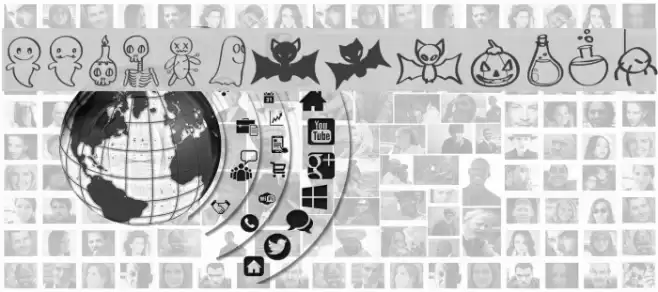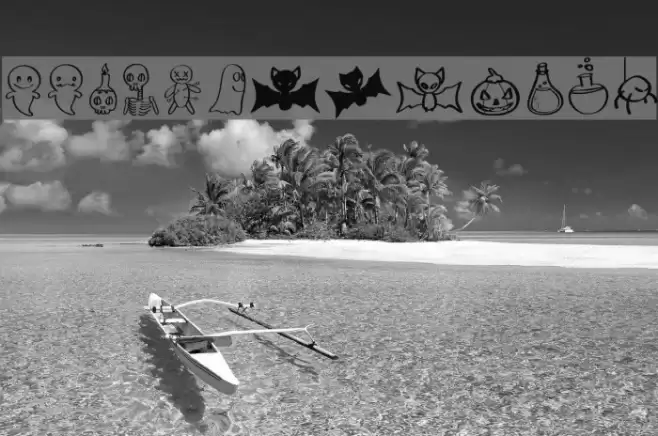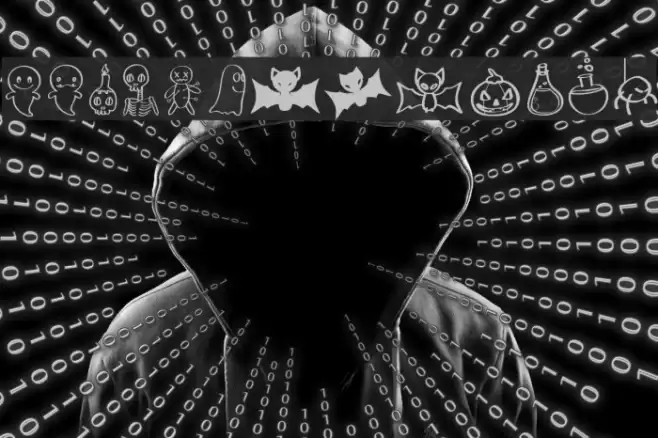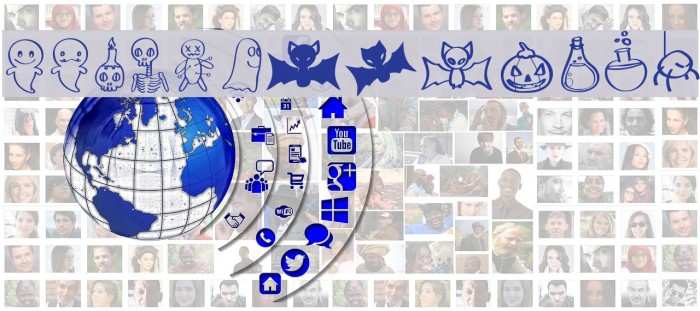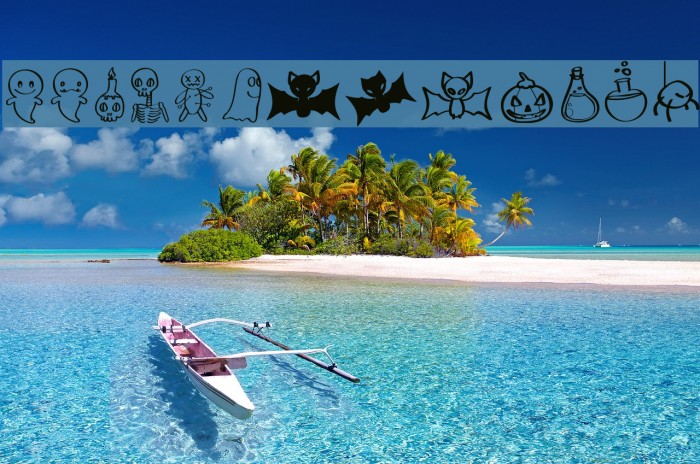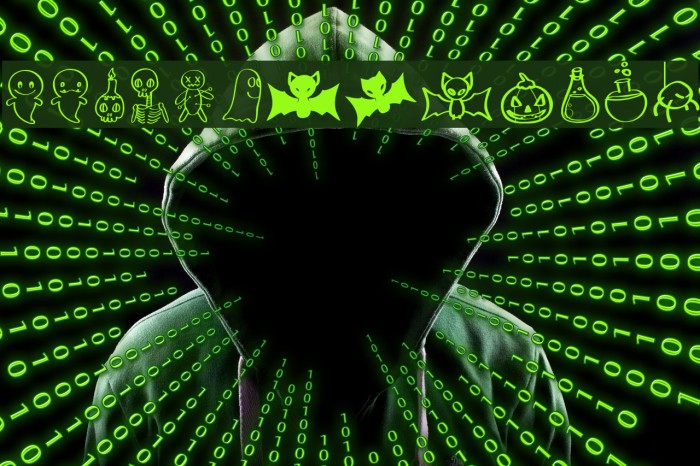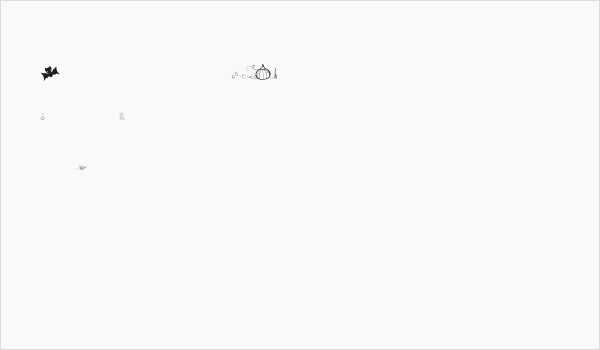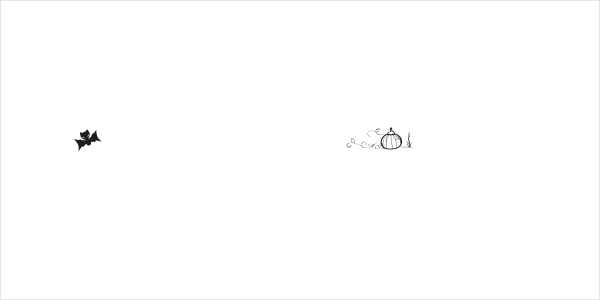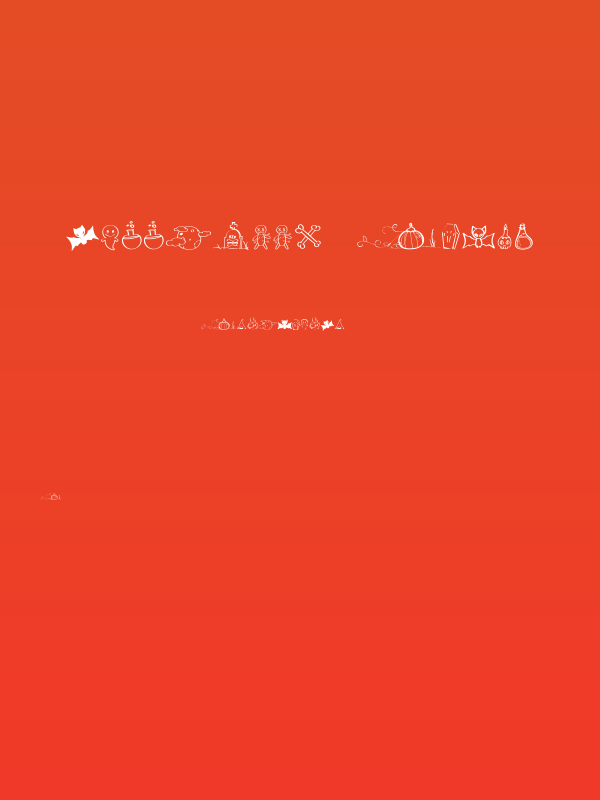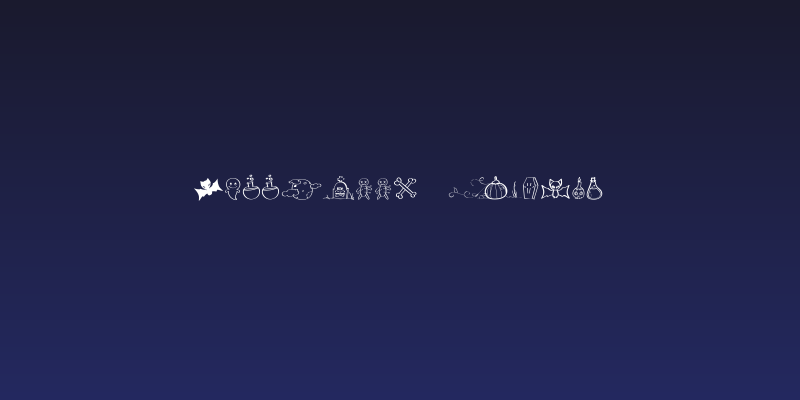
Halloween Trick Font
Halloween Trick Description
This is a decorative font featuring a variety of Halloween-themed illustrations. Each character is represented by a unique spooky icon, such as ghosts, skeletons, bats, pumpkins, and witches' hats. The style is playful and whimsical, capturing the essence of Halloween with a lighthearted twist. The characters are bold and easily recognizable, making them perfect for festive designs. The line work is clean and consistent, providing a polished look to each icon. This font is ideal for adding a touch of Halloween spirit to any project, with its charming and fun aesthetic.
A decorative font with playful Halloween-themed icons from Halloween fonts.
- Proposed Projects: Ideal for Halloween party invitations, themed posters, greeting cards, and festive decorations.